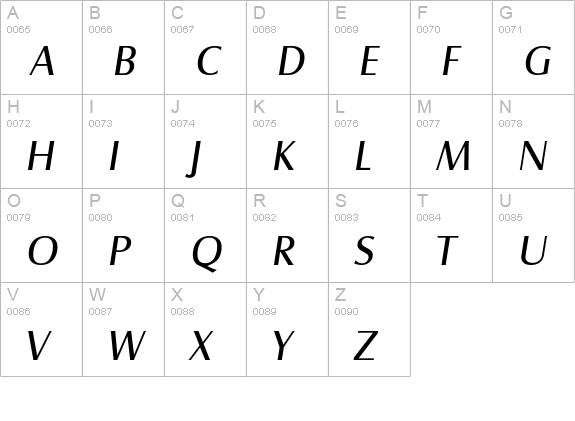
SalzburgSerial-Italic is a distinctive, italic variant in the SalzburgSerial typeface family \xE2\x80\x94 well suited to design and typography projects.
SalzburgSerial-Italic is a sleek and elegant font that exudes sophistication and modernity. With its slanted italic design, this typeface brings a sense of dynamism and style to any project. The clean lines and curves of SalzburgSerial-Italic create a harmonious visual appeal that is both eye-catching and professional. Whether used for headlines, titles, or body text, this font is sure to make a statement. Best of all, SalzburgSerial-Italic is available for free download at FontsMarket.com. This means you can easily access and start using this beautiful font in your designs without any cost. Don't miss the opportunity to enhance your projects with the timeless beauty of SalzburgSerial-Italic. Download it now and elevate your design game to the next level.